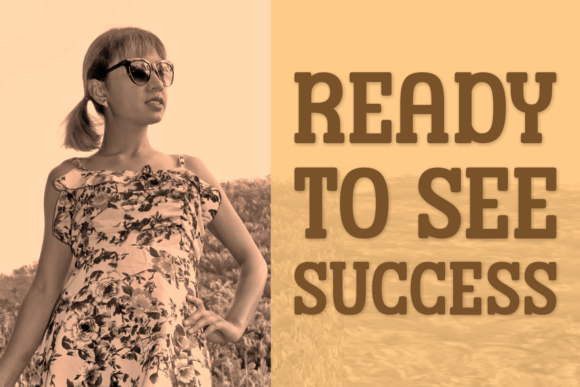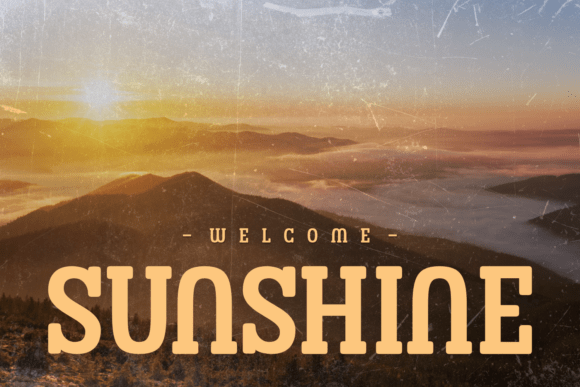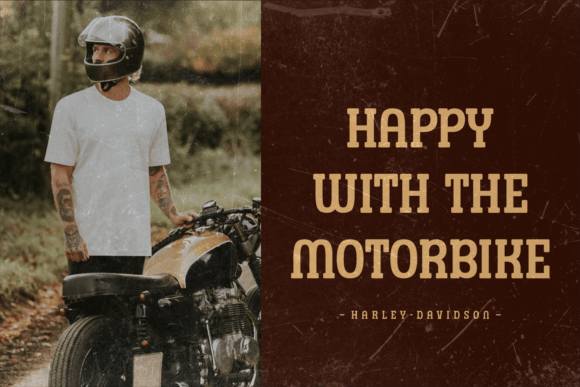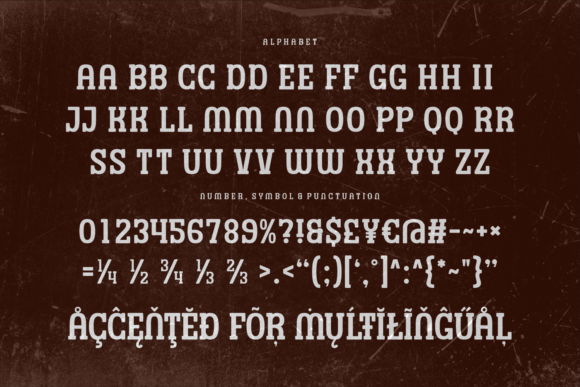
Introduction to Monday Monica Font Font
Fonts play a crucial role in design, and the Monday Monica Font font is a typeface that brings both character and versatility to any project. Whether you’re working on a branding project, a website, or a print design, the Monday Monica Font font offers a unique style that can elevate your work.
Step into the captivating domain of typography with the Monday Monica Display slab serif font.
This is not just an ordinary font; itβs a testament to the ubiquitous enchantment of letters Its Monday Monica Display design works perfectly for a book cover, contributing to creating a striking first impression.
Key Features of Monday Monica Font Font
Why Choose Monday Monica Font Font?
The Monday Monica Font font is more than just a typeface β it’s a design tool that helps you communicate your message with style and clarity. Its unique character set and versatile design make it suitable for a wide range of applications, from elegant invitations to bold headlines.
With its carefully crafted letterforms and balanced proportions, the Monday Monica Font font ensures readability and visual appeal across all mediums.
What makes Monday Monica Font font special?
The Monday Monica Font font stands out with its unique design, exceptional readability, and versatility across various design applications.